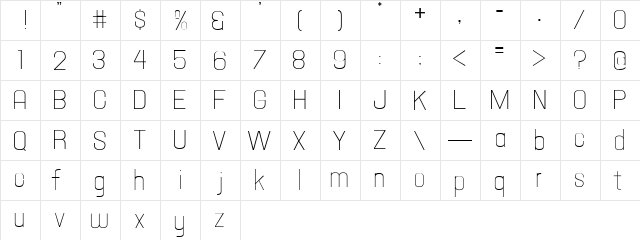
Hallandale Text Light JL Regular
| Foundry | Jeff's Fonts & Dingbats |
| Designer | Jeffrey N. Levine |
Design Context for Hallandale Text Light JL Typeface
Hallandale Text Light JL takes a measured approach to typography — its balanced proportions and neutral character make it a reliable workhorse for both digital and print work. The delicate stroke weight brings airiness and refinement to layouts.